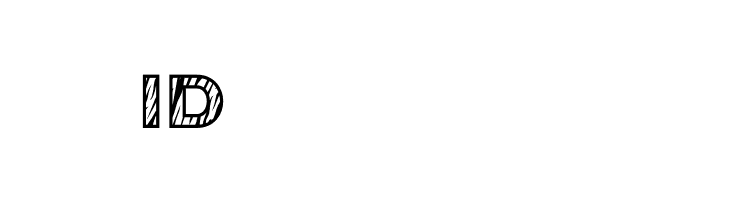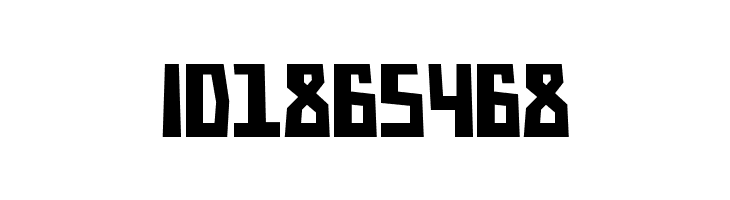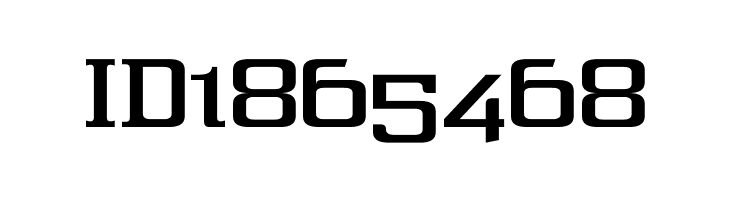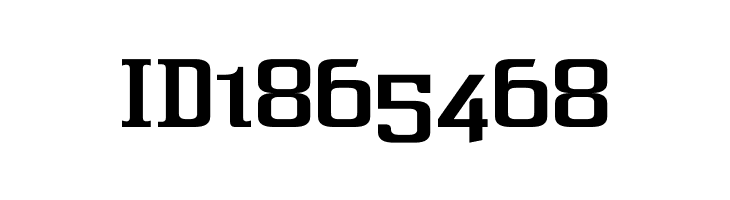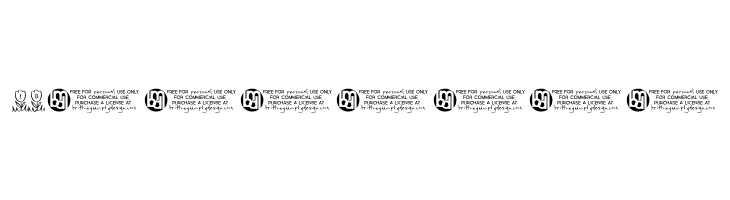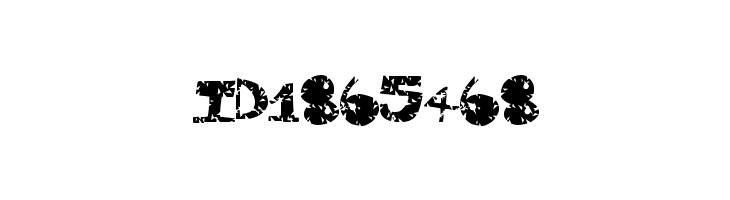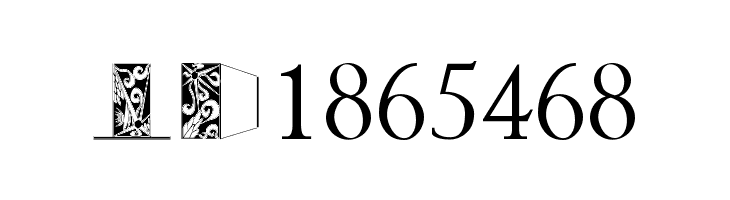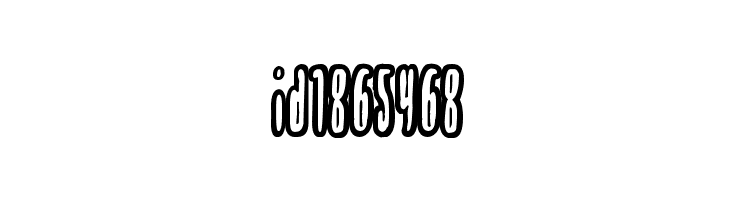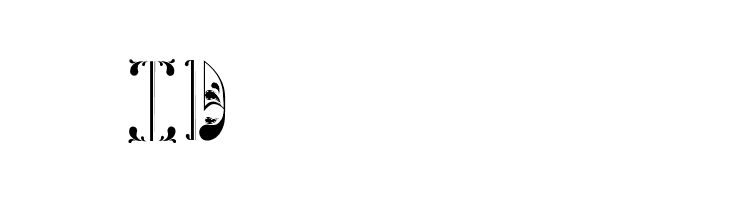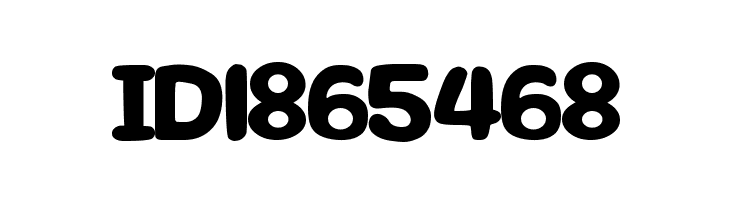
A bold, condensed font with a modern and dynamic style.
A distressed, grunge-style font with bold, textured characters.
A bold, geometric font with an urban, industrial style.
A bold, playful font with rounded strokes and a bubble-like appearance.
A playful, tulip-themed decorative font with a hand-drawn style.
A bold, decorative font with a unique striped pattern, ideal for eye-catching displays.
A decorative font with intricate, ornamental designs and artistic flair.